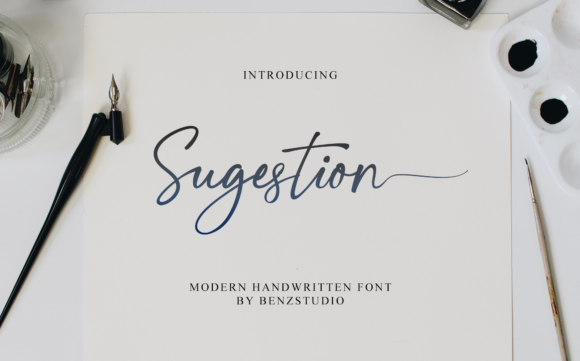
Unleash Your Creativity with Sugestion: An Exquisite Handwritten Font Designed for Script Writing
Step into the world of captivating storytelling with Sugestion, a breathtaking handwritten font that will bring your scripts to life. Crafted by the talented Benzstudio, this elegant typeface exudes a timeless charm while maintaining a modern and refreshing aesthetic.
Immerse yourself in the beauty of Sugestion's varied bases, smooth lines, gorgeous glyphs, and stunning alternatives. Each letter dances across the page with grace and fluidity,�る�skilled penmanship come to life. Whether you're writing a heartfelt screenplay, a compelling novel, or an engaging marketing campaign, Sugestion will elevate your words and leave a lasting impression on your readers.
With its classy calligraphic influence, Sugestion captures the essence of traditional writing while embracing contemporary design trends. It's the perfect choice for those seeking a font that's both elegant and approachable. Whether you're a seasoned writer or just starting out, Sugestion will become your trusted companion, guiding your creativity and helping you express your unique voice.
Don't settle for ordinary fonts that blend into the background. Choose Sugestion and let your scripts shine. Its distinctive charm will captivate your audience, leaving them eager to discover the story you have to tell. Experience the magic of Sugestion today and take your writing to new heights!